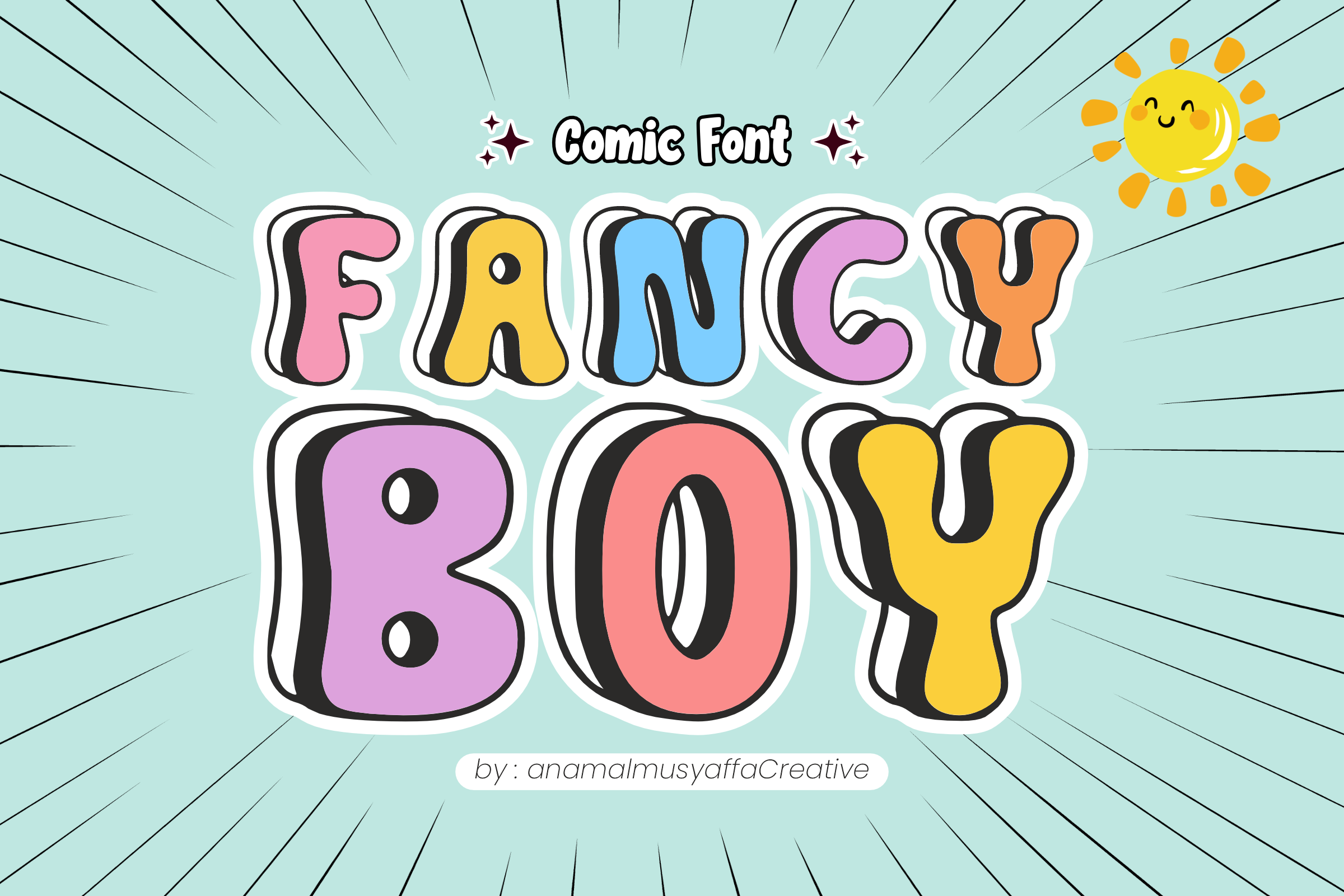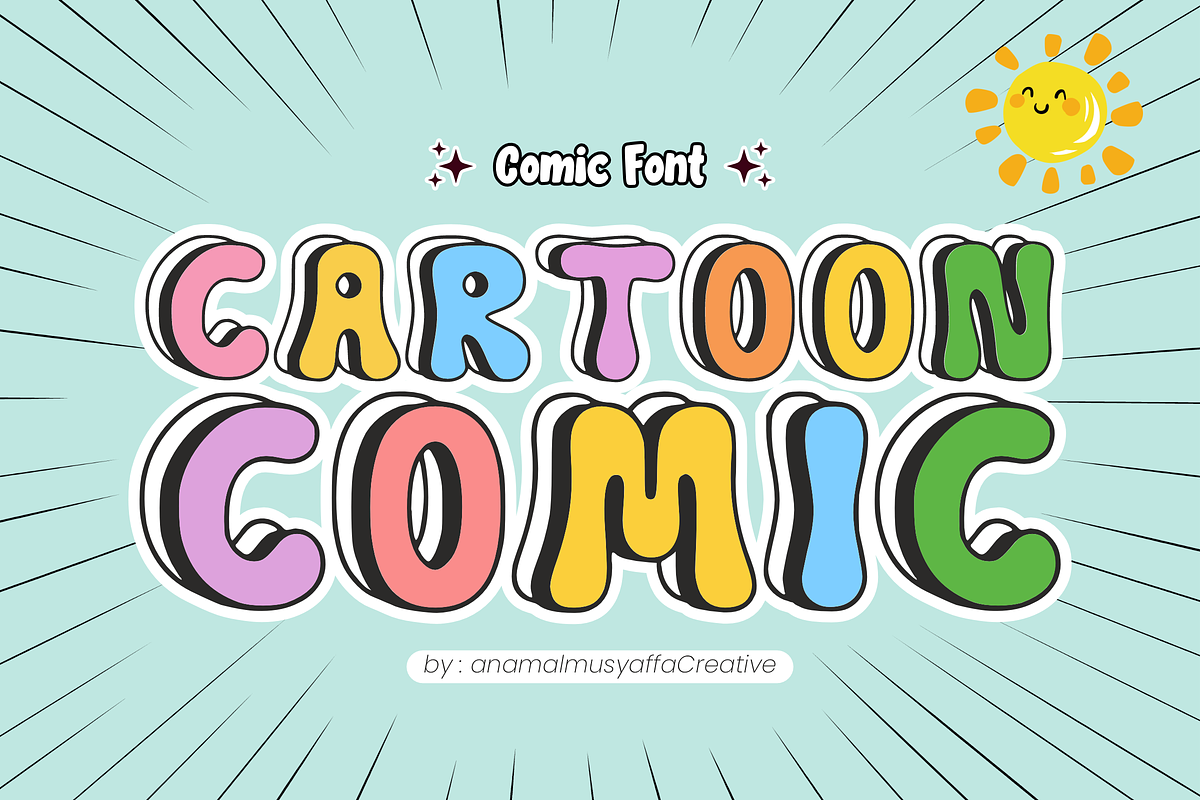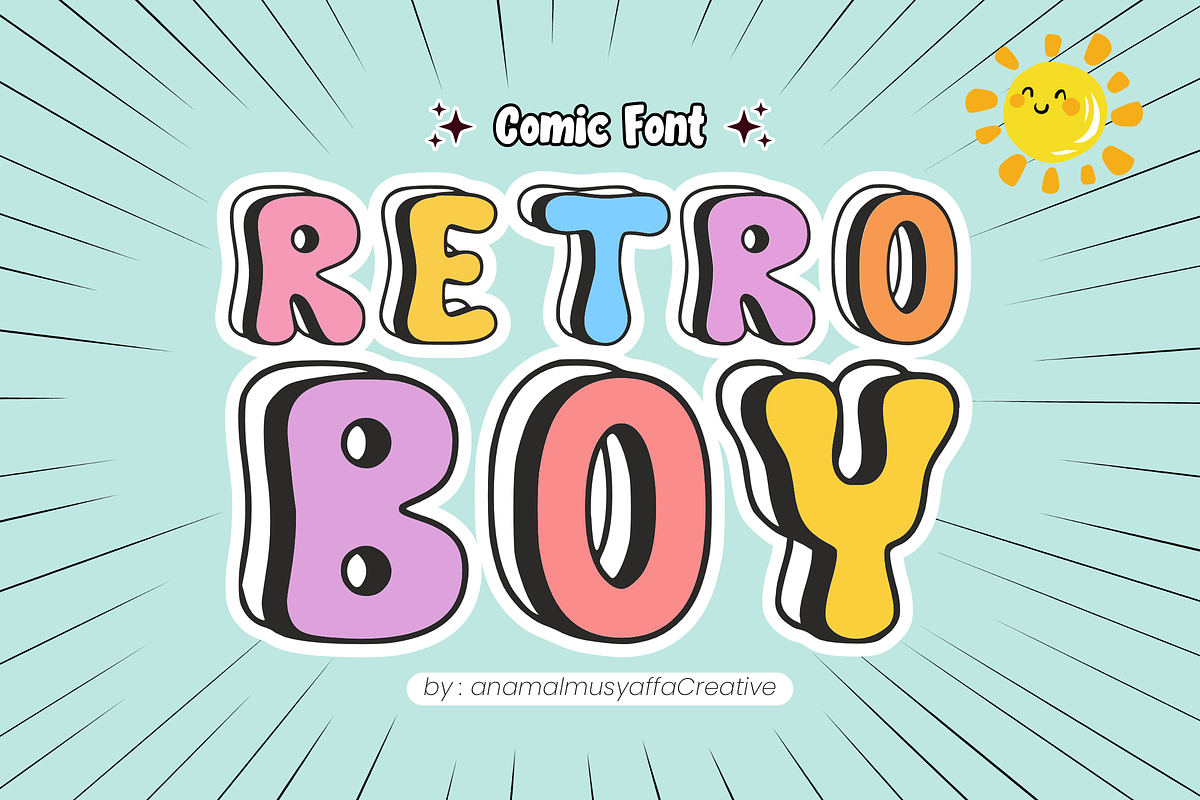
Fancy Boy - Display Font
🕶️ Fancy Boy - Stylish & Playful Dotted Font ✨ Step up your design game with Fancy Boy! This font is the perfect mix of "cool" and "cute," featuring bold, chunky characters filled with a trendy polka-dot pattern. Designed with a clean "sticker-style" outline and a bouncy, energetic personality, it’s made for projects that need to look sharp, fun, and high-impact.
Whether you're branding a new kids' clothing line or creating high-energy party decor, Fancy Boy adds that extra touch of "fancy" flare!
🌟 Key Features: 💎 Stylish Uppercase: Bold, rounded letters with a unique twinkling dot texture.
🔢 Numbers 0-9: Matching patterned numerals for dates, prices, and ages.
🎈 Simple Symbols: Essential punctuation to complete your creative headlines.
✂️ Sticker Ready: Smooth, thick outlines optimized for vinyl cutting (Cricut/Silhouette) and printing.
🎨 Perfect For: 👕 Kids Fashion: Cool t-shirt slogans, apparel branding, and streetwear labels.
🧸 Modern Branding: Toy packaging, children’s logos, and lifestyle brands.
🎂 Celebrations: "Cool Boy" birthday invites, party banners, and gift tags.
🏫 Education: Stylish classroom posters, teacher resources, and school flyers.
📱 Social Media: Trendy YouTube thumbnails and eye-catching Instagram graphics.